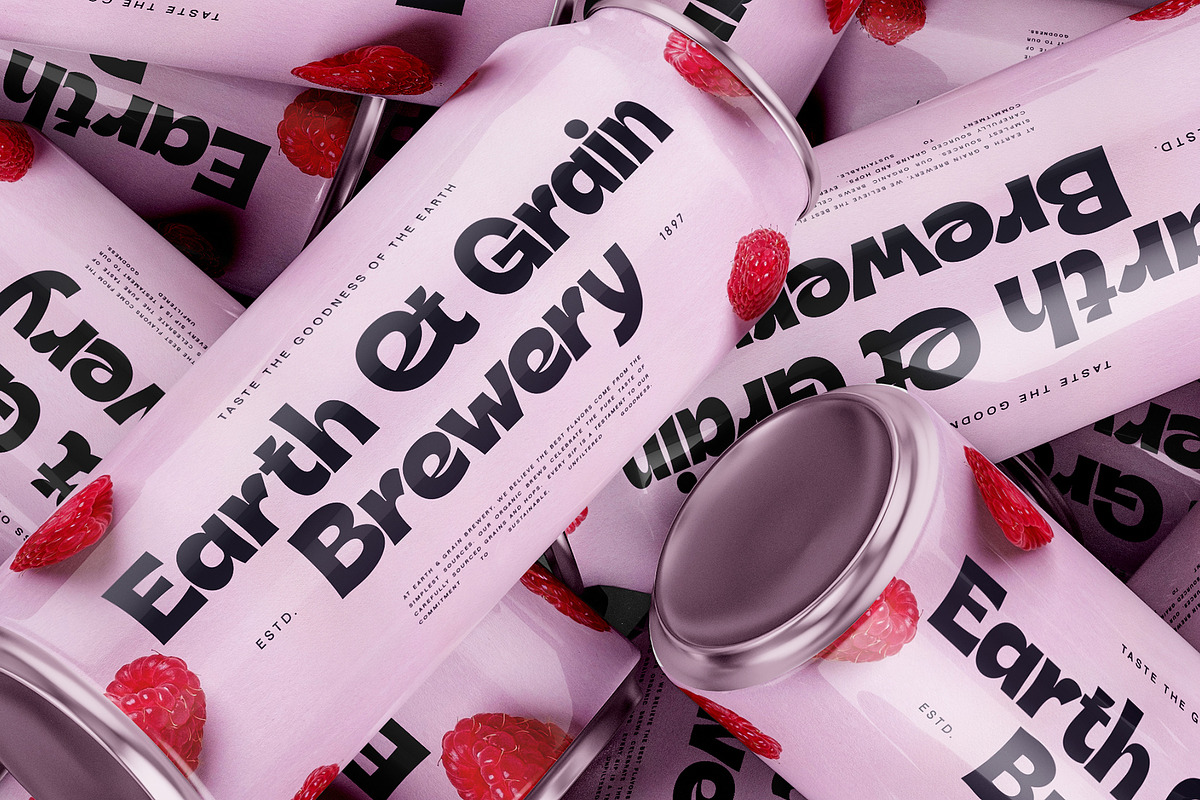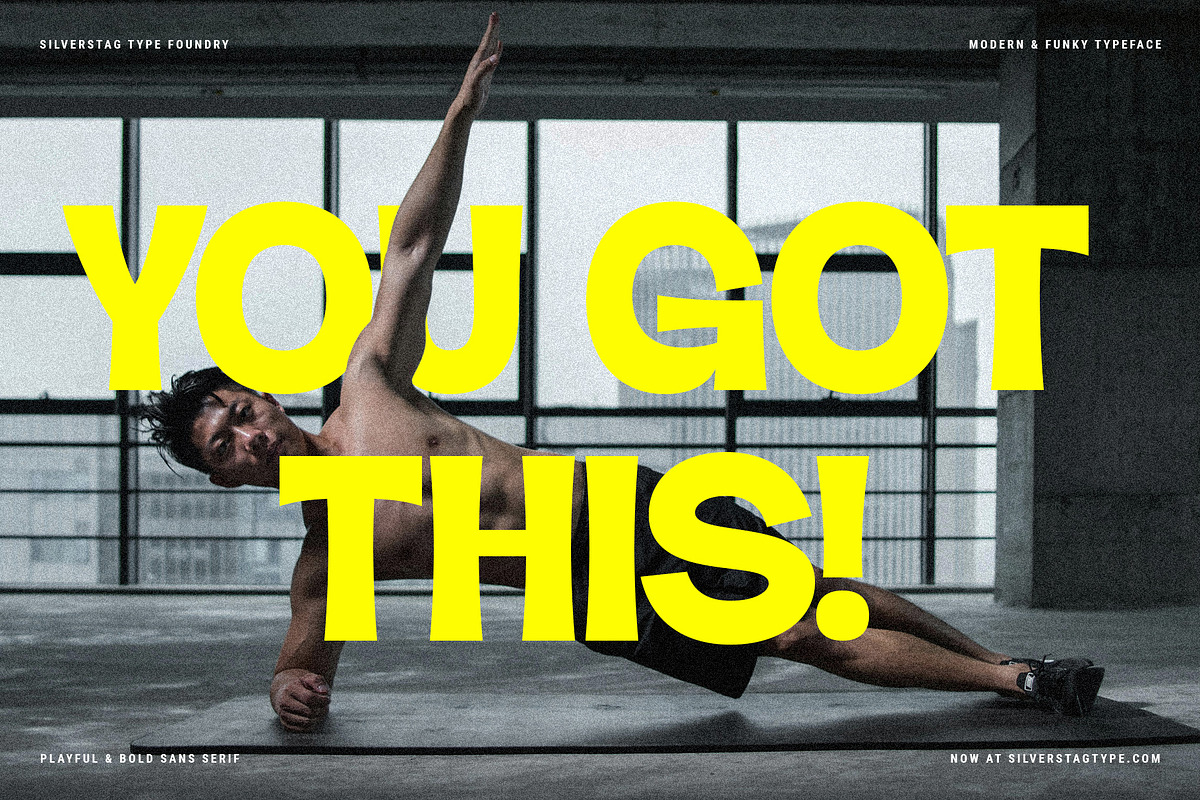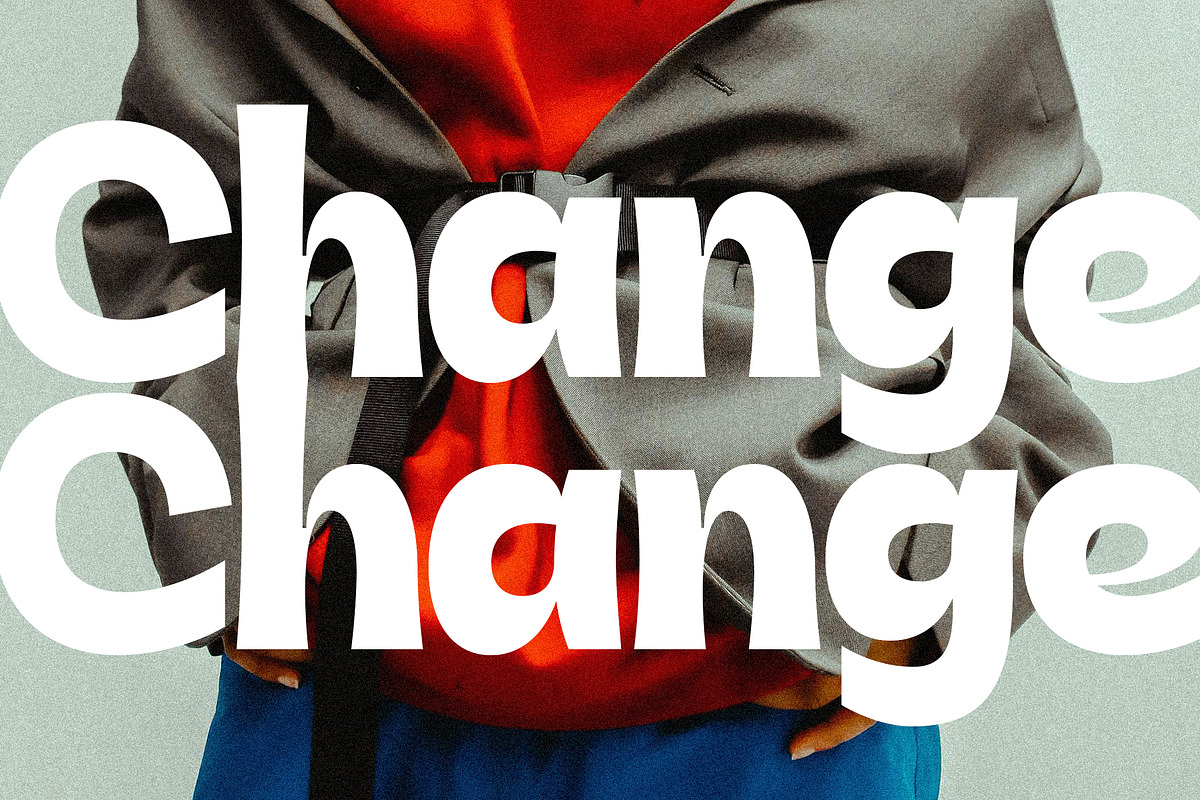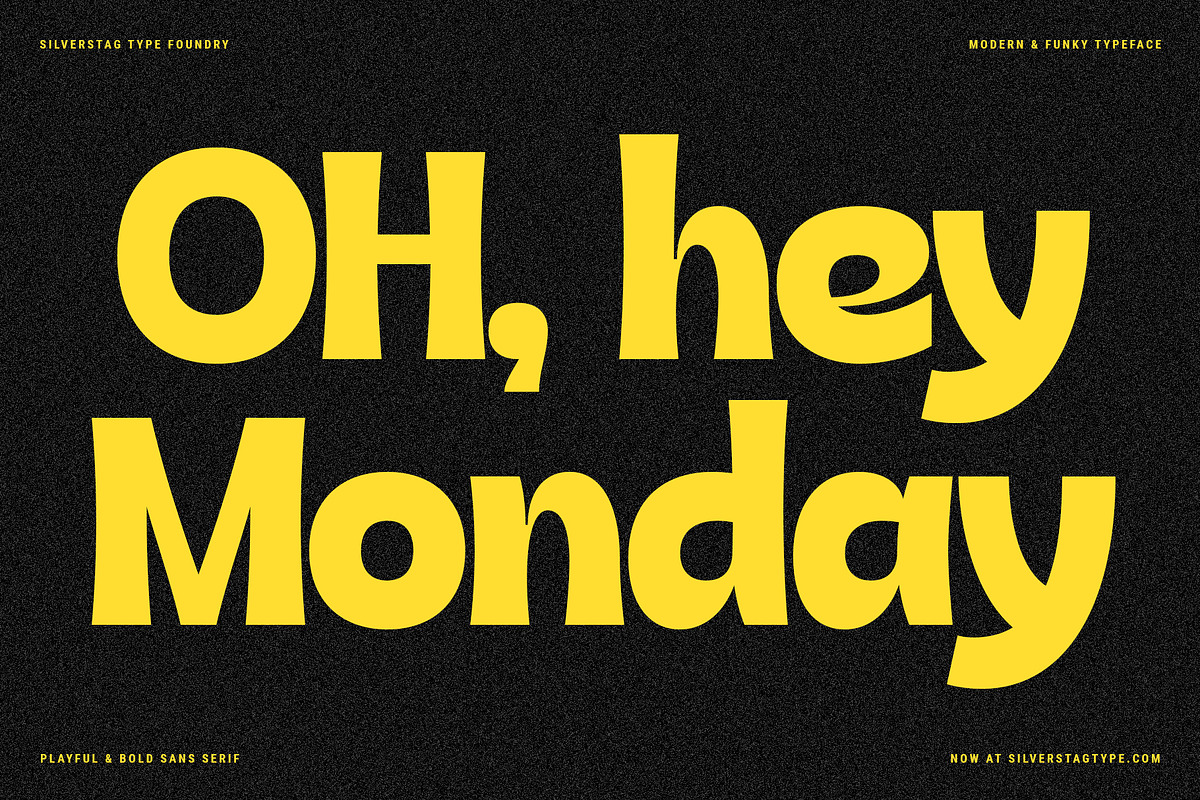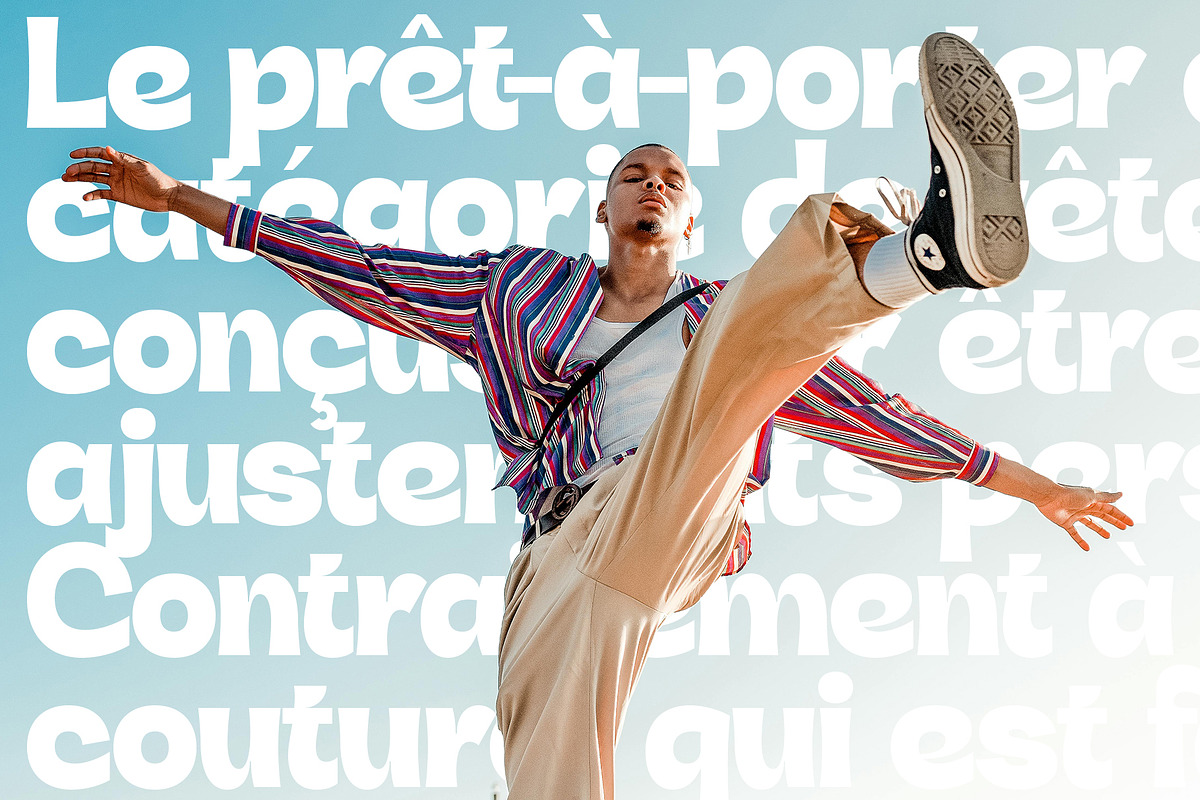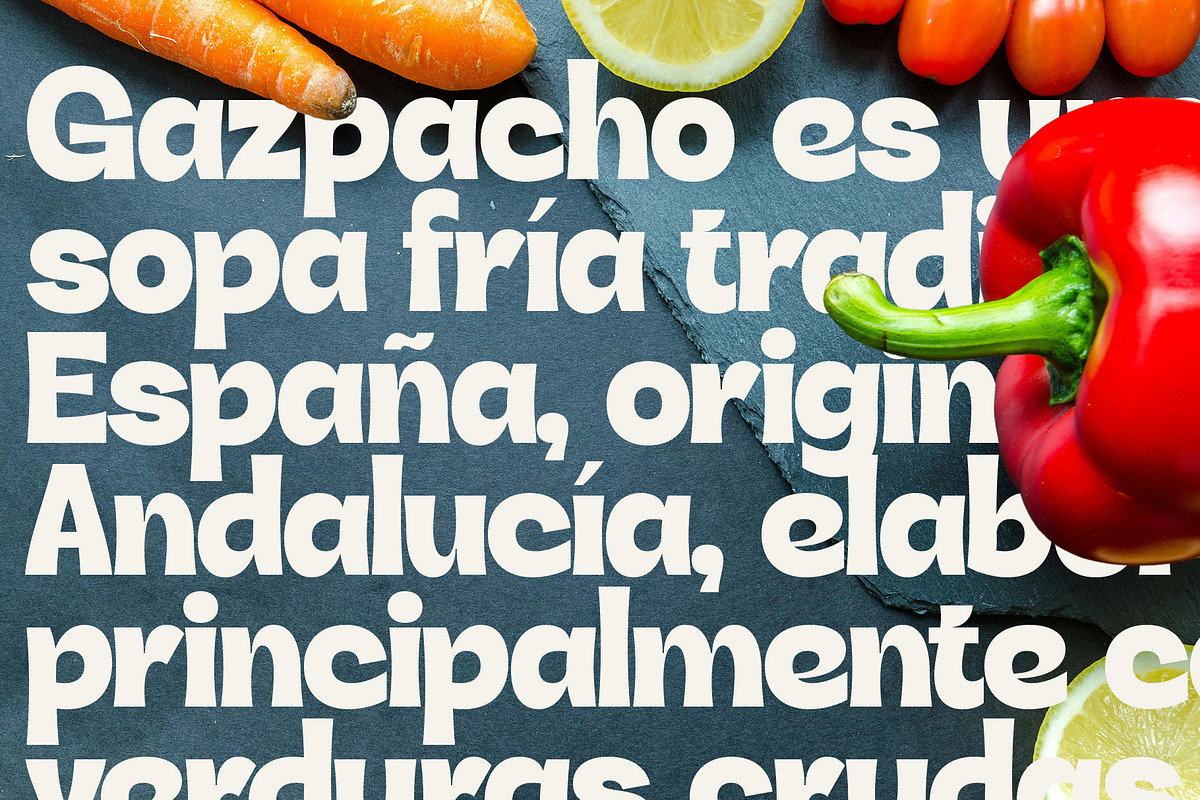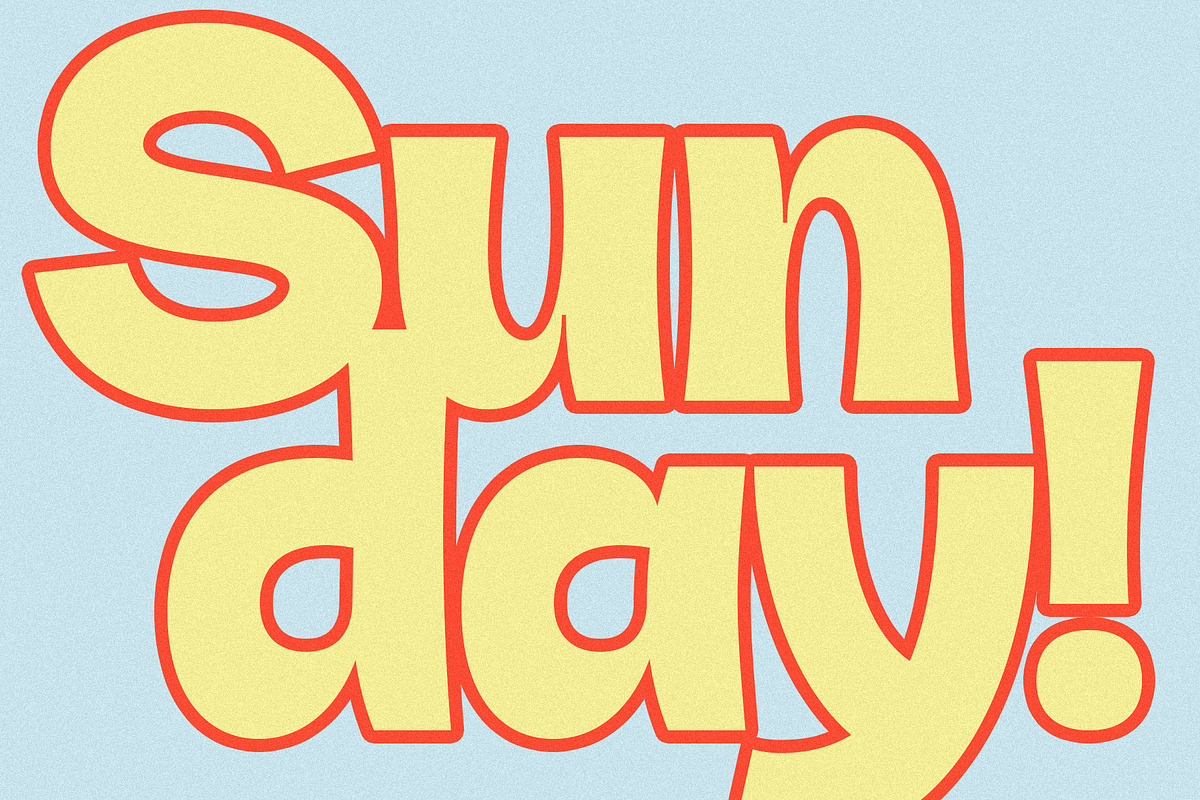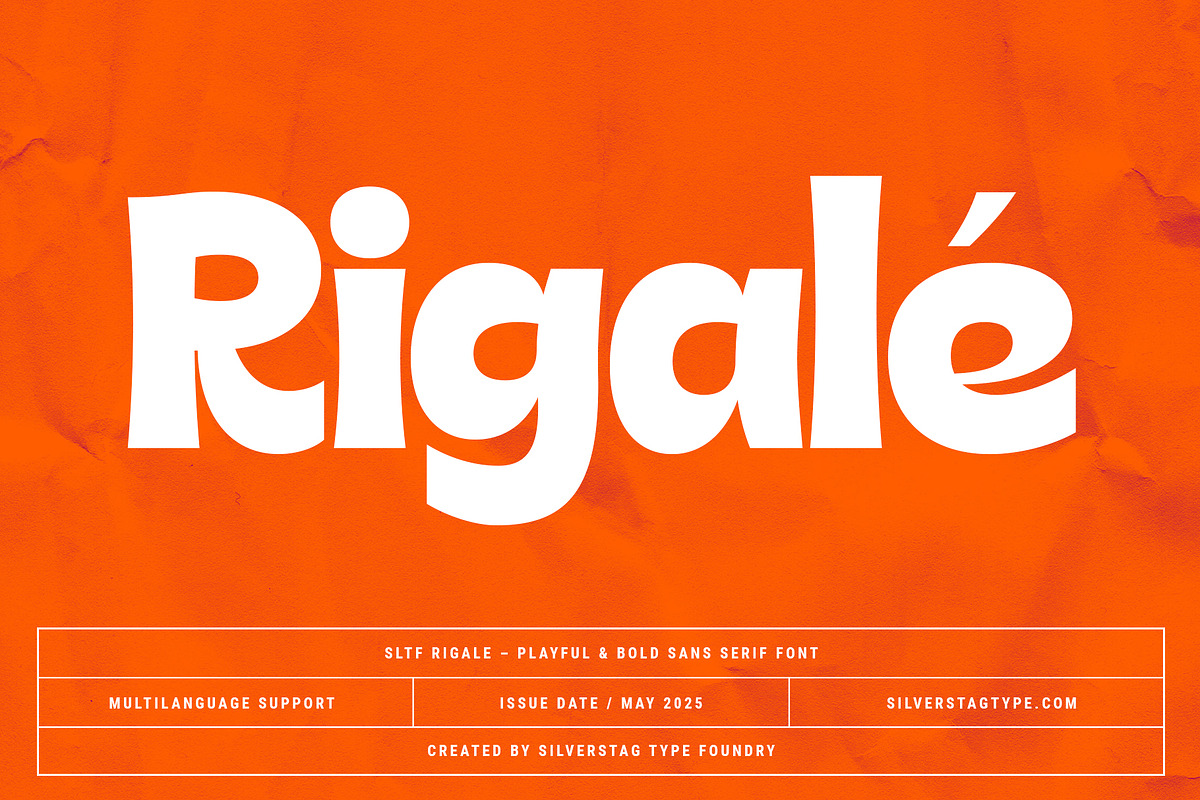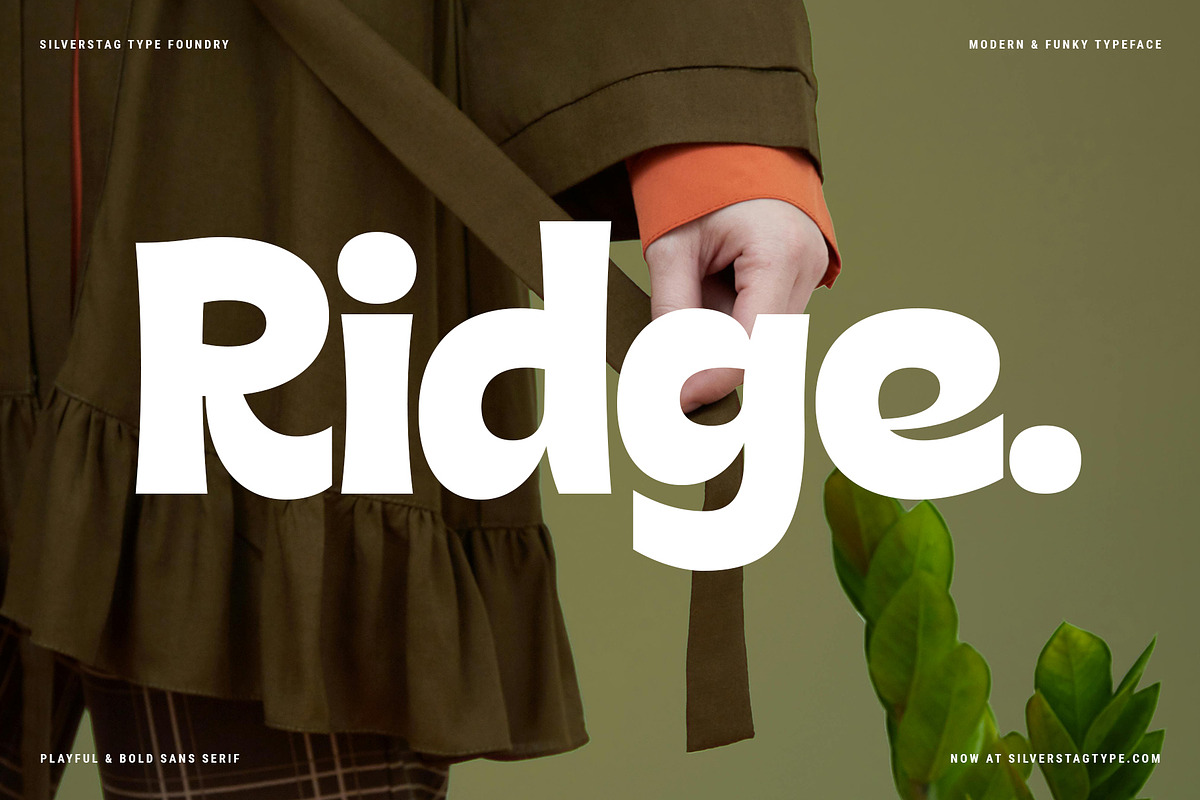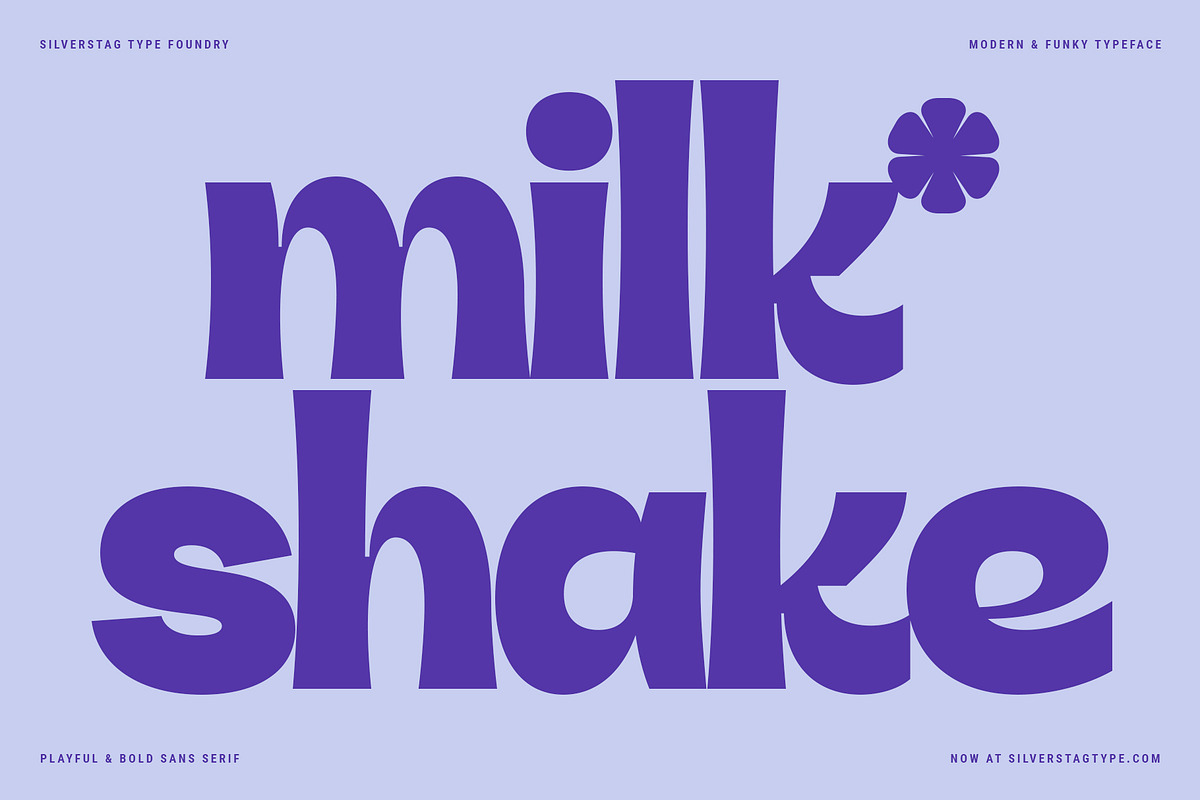
Rigalé – Playful & Bold Sans Serif
Meet SLTF Rigalé, a modern sans serif typeface that brings playful character and bold energy to your creative toolbox. Designed with a unique sense of rhythm, stylish ink traps, and curvy charm, Rigalé stands out in a world of rigid geometry and sterile minimalism.
This bold and rounded typeface blends clean structure with an upbeat, slightly retro attitude - perfect for designers looking to make a statement. Whether you’re crafting standout packaging, lifestyle branding, creative headlines, or eye-catching apparel graphics, Rigalé brings a punch of personality to your work.
The letterforms feature exaggerated vertical stress and unexpected curves that bring movement and flair, while over 100 ligatures and alternates keep your typography fresh and full of life. Rigalé includes both uppercase and lowercase sets, full punctuation, multilingual support for over 90 languages, and webfont files to keep your brand consistent across platforms.
From vibrant product labels to punchy poster designs, Rigalé is ready to play.